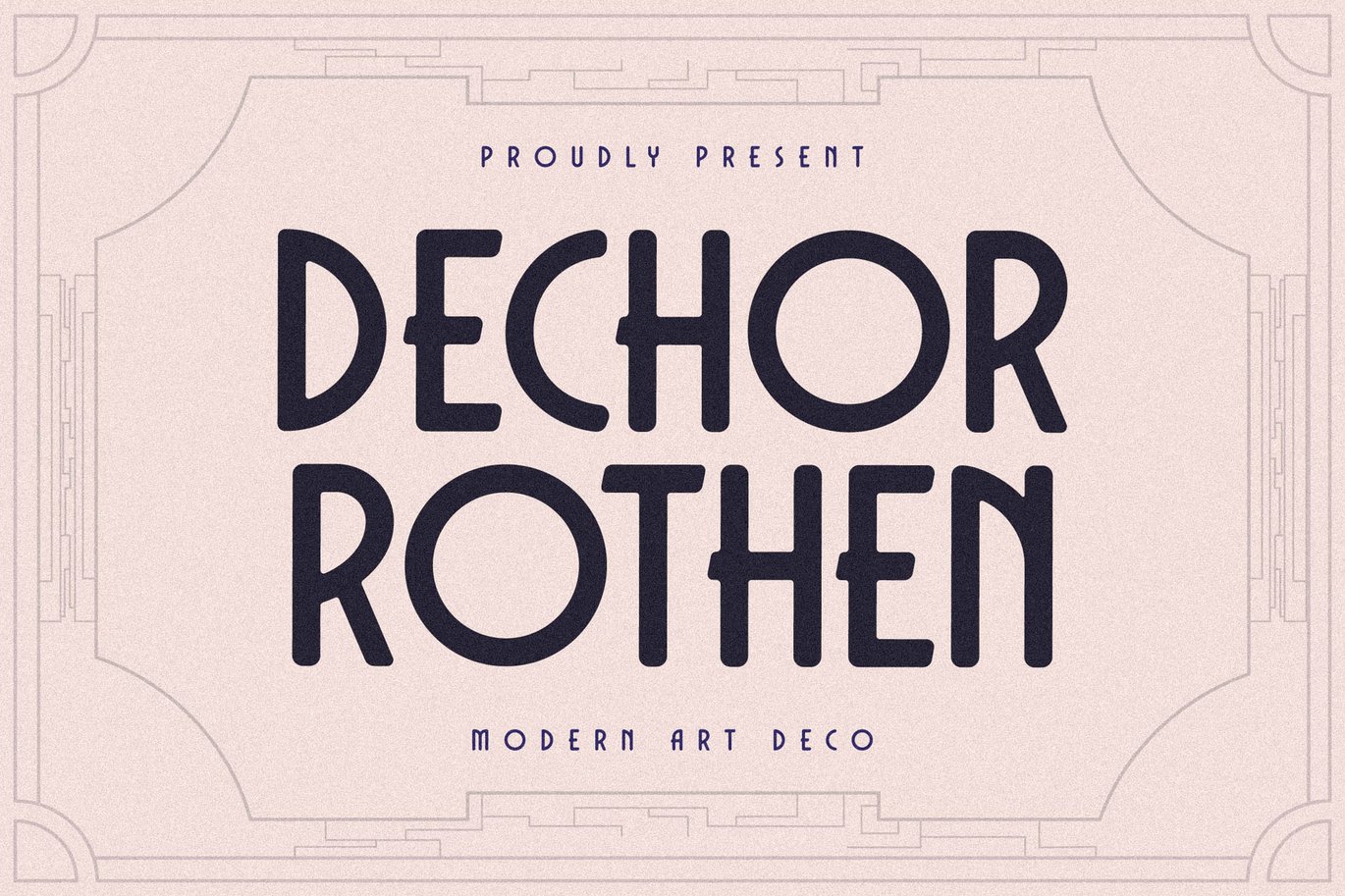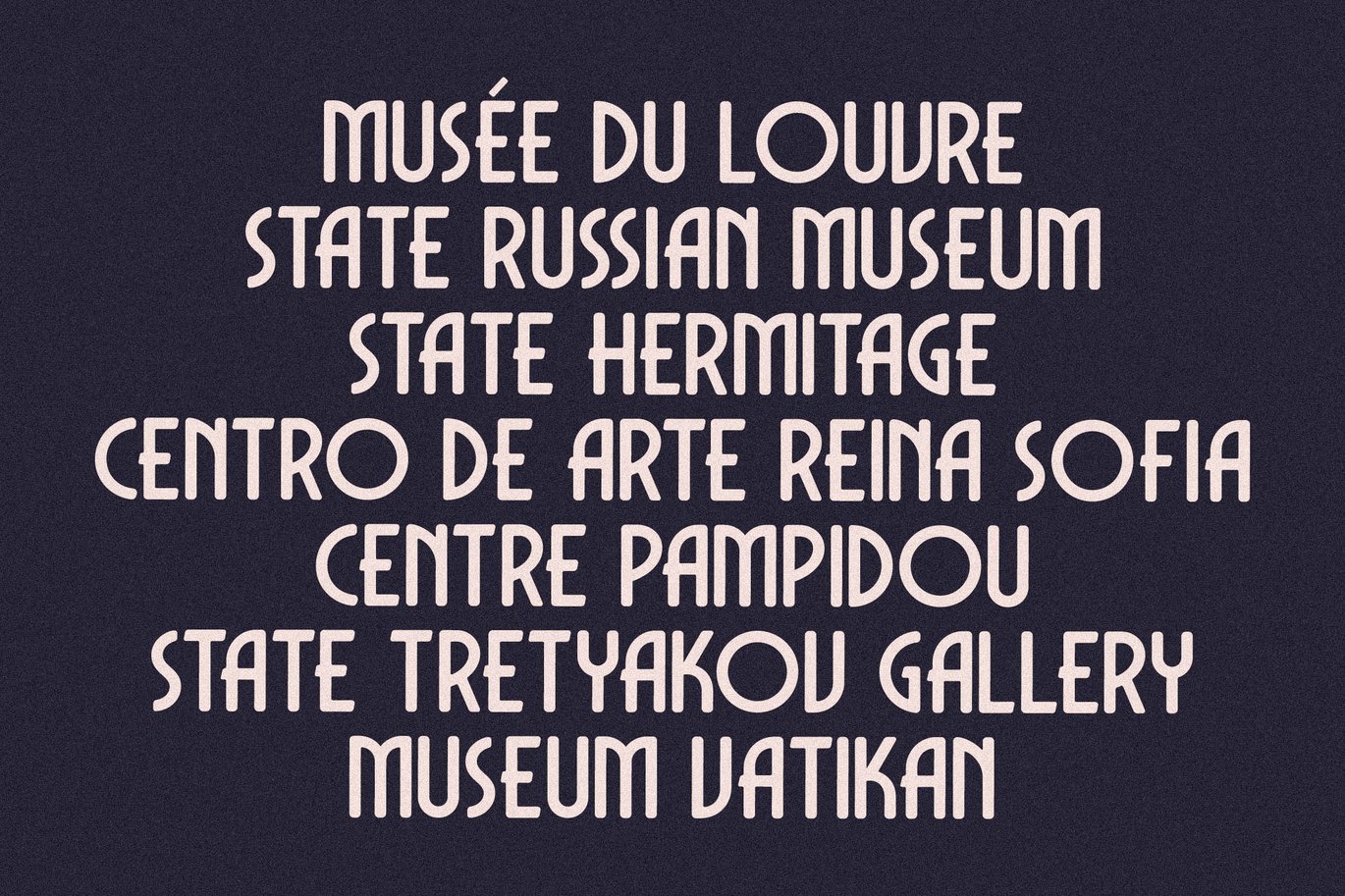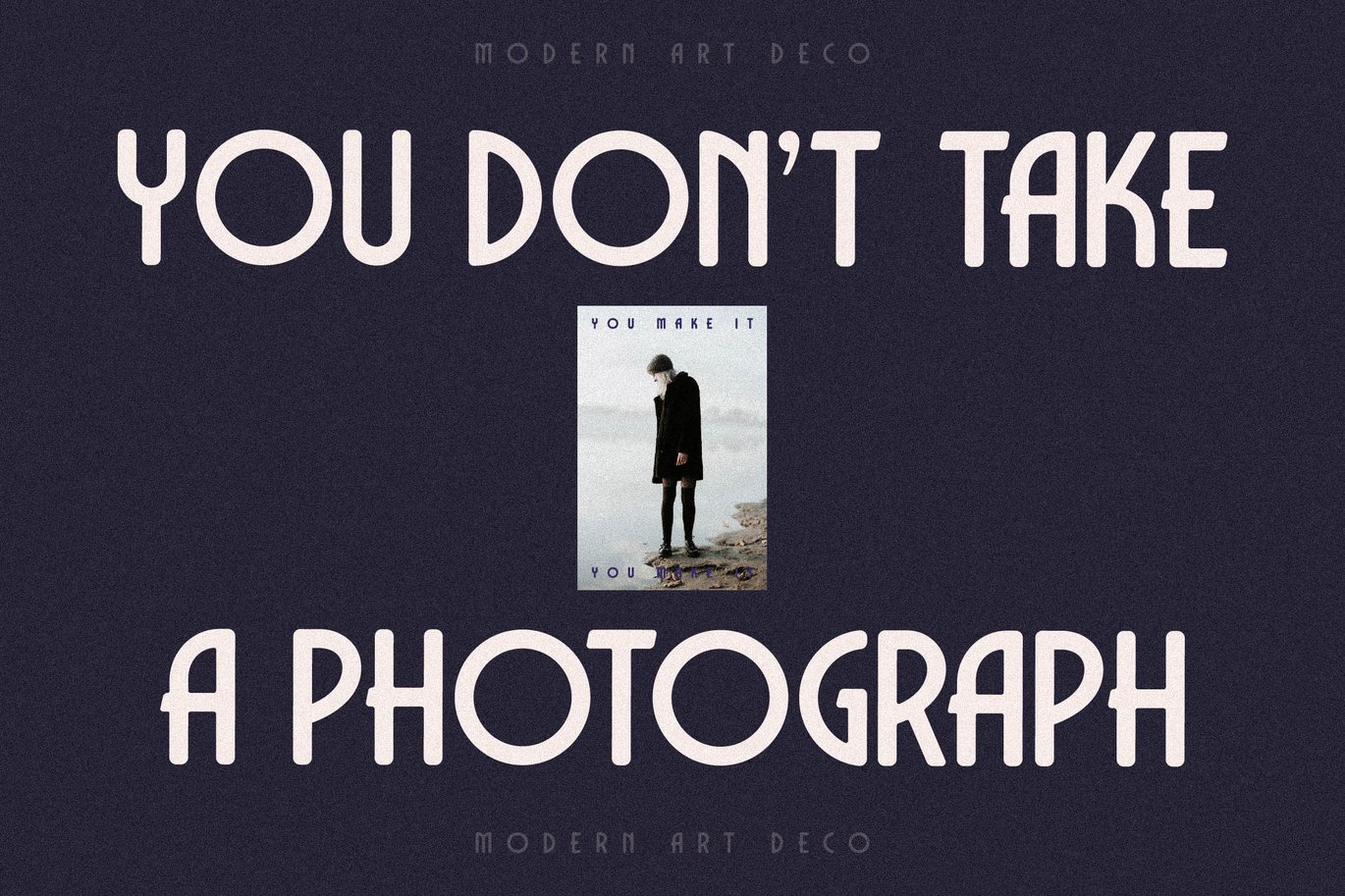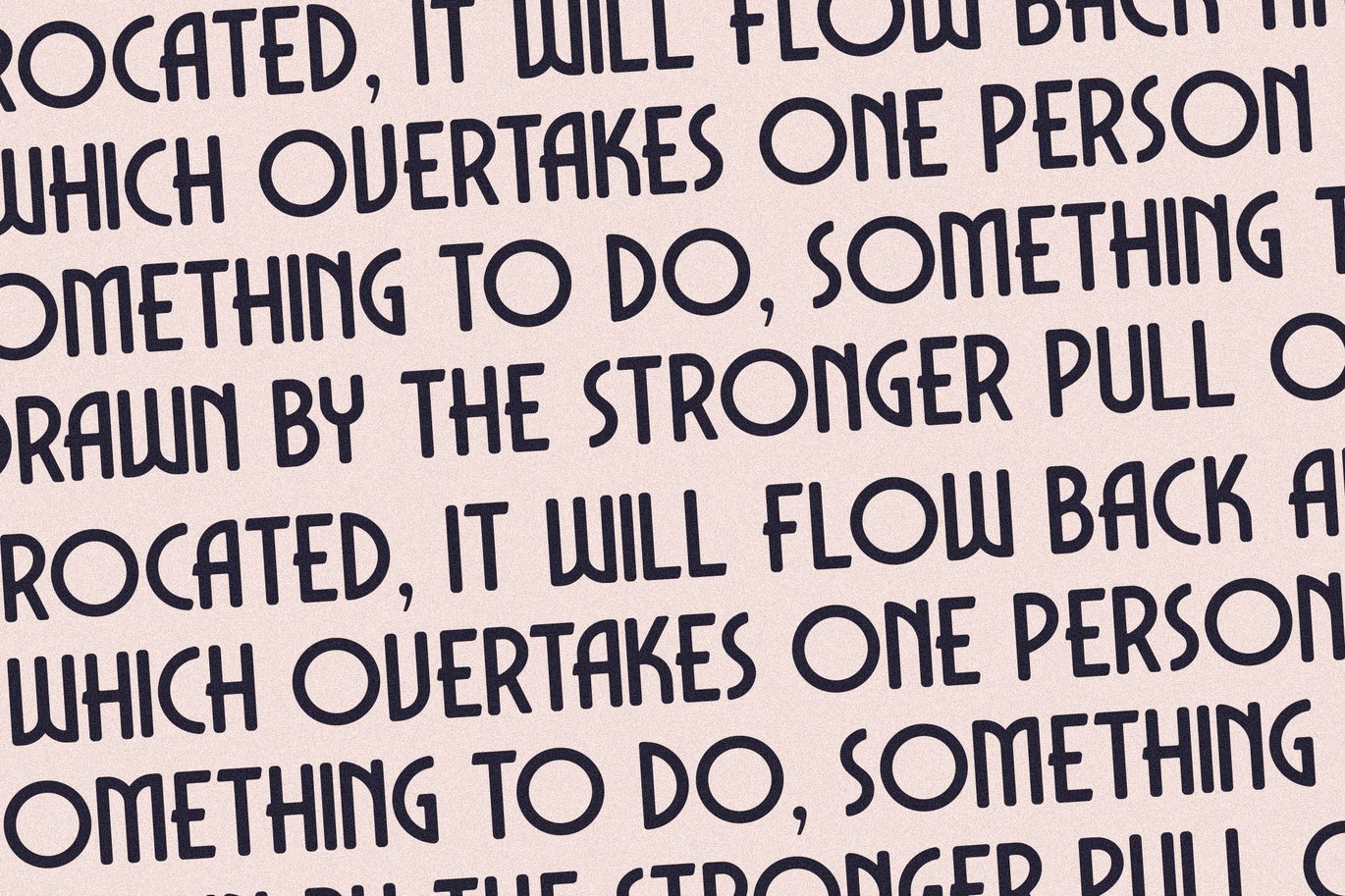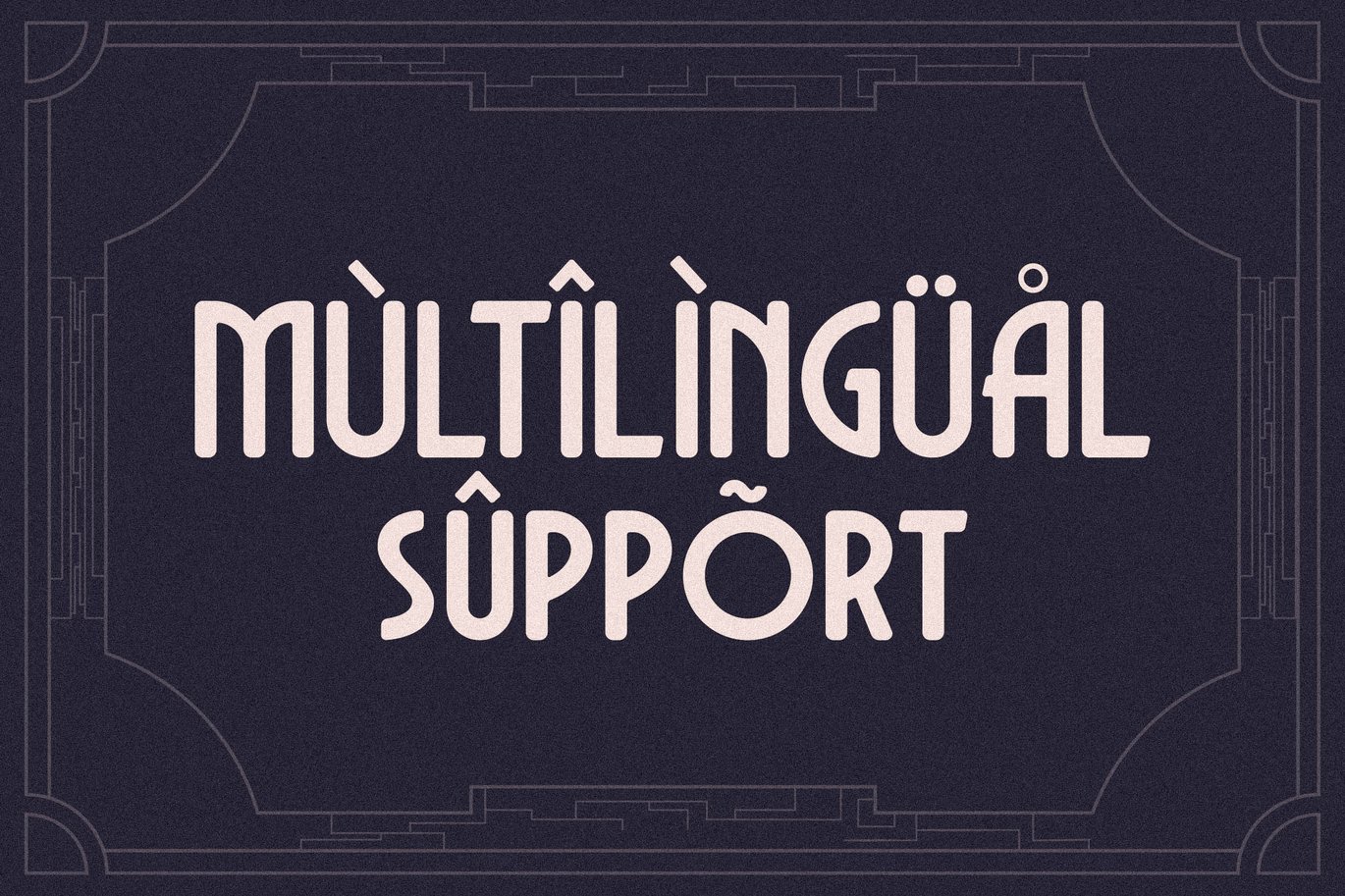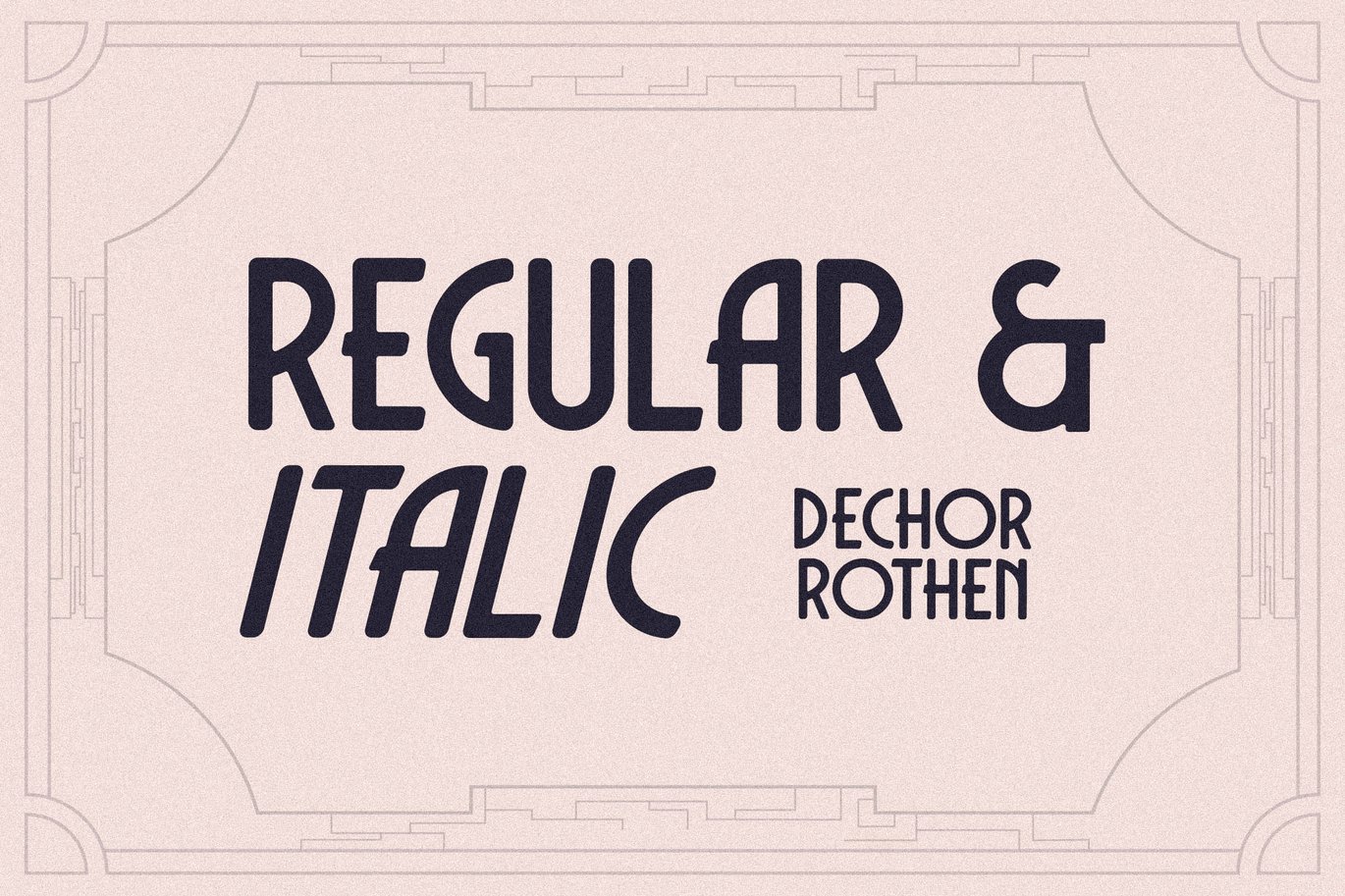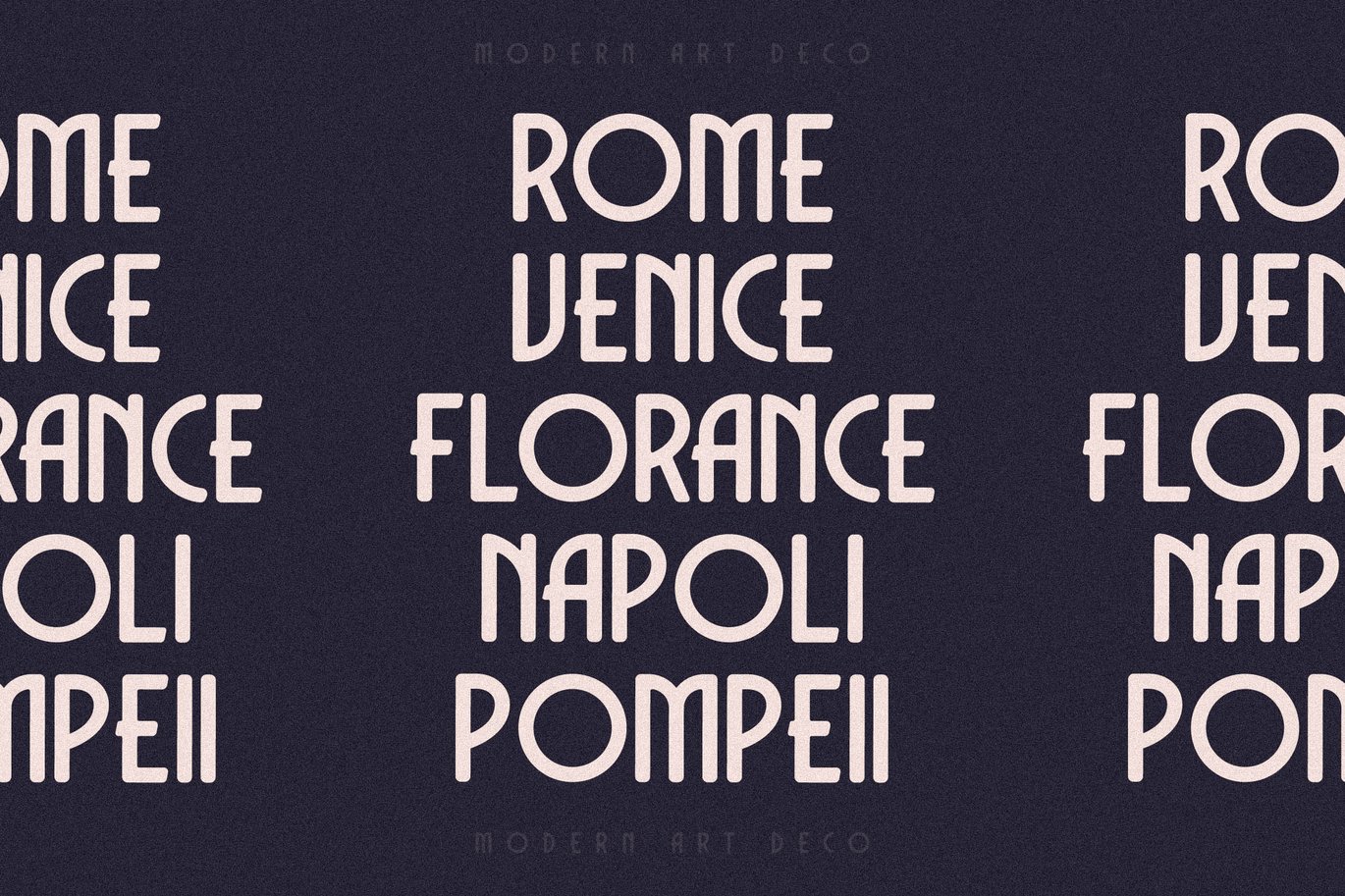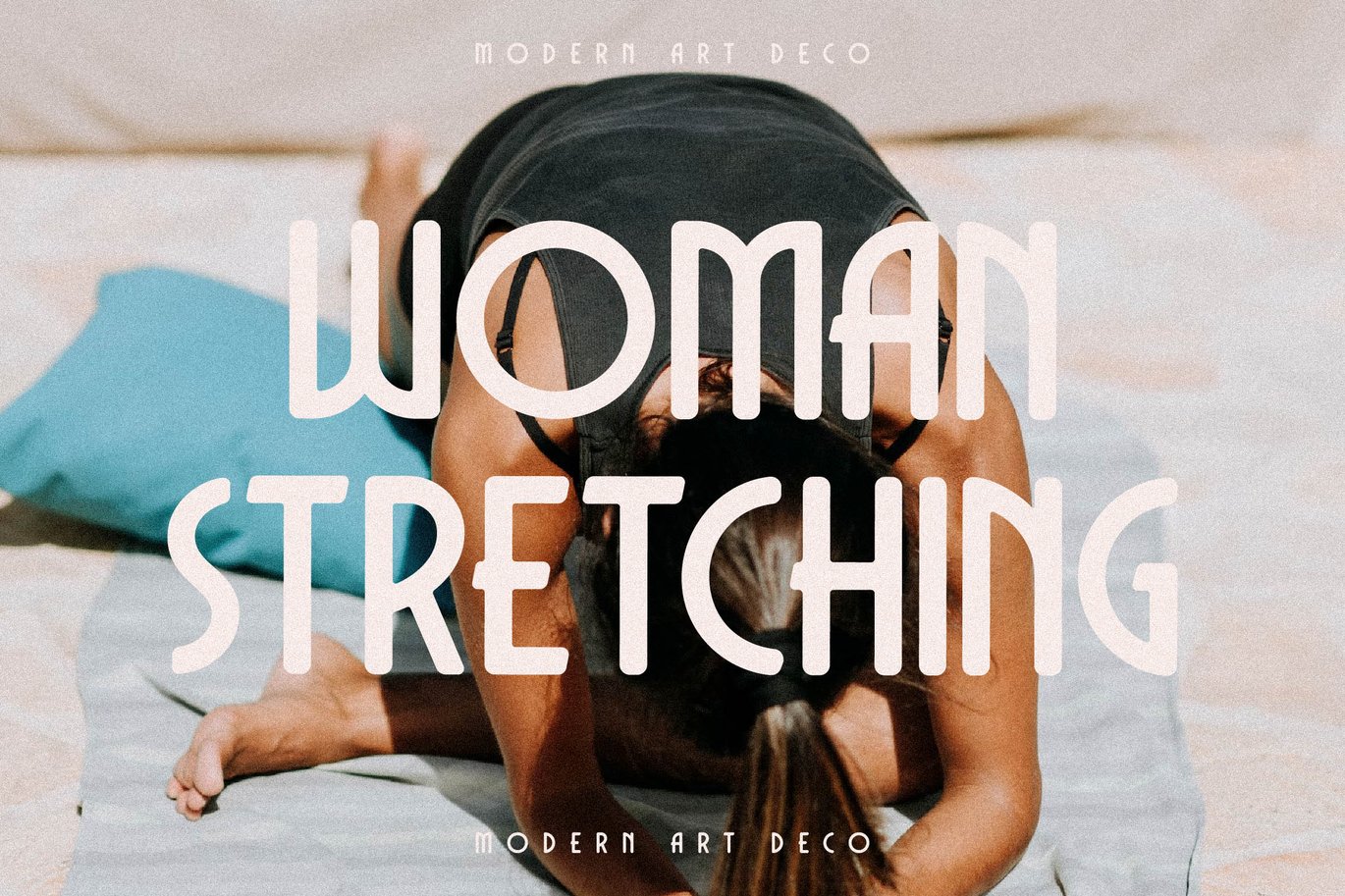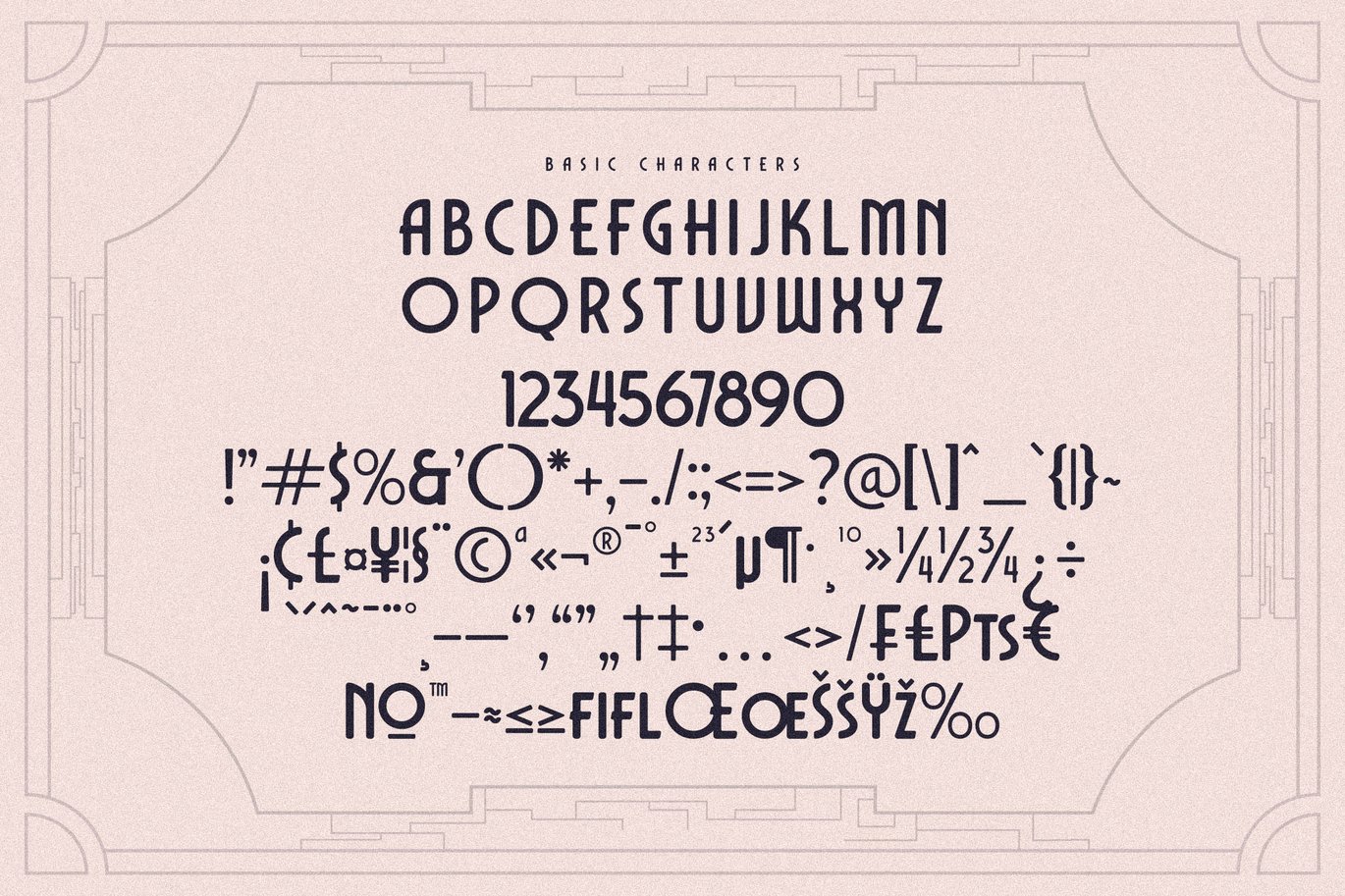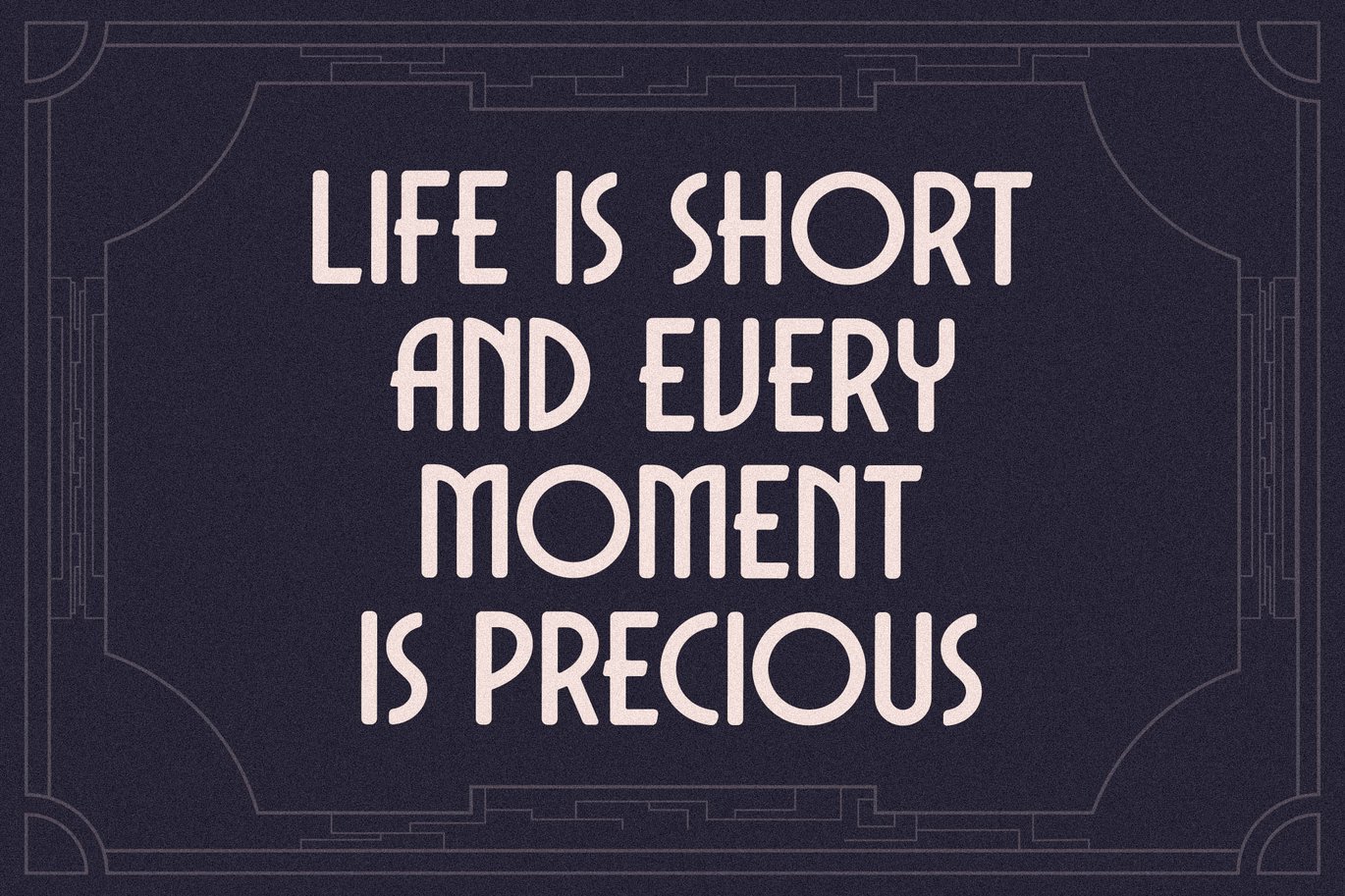
Dechor Rothen – Modern Art Deco Typeface
Dechor Rothen is a modern Art Deco typeface inspired by the elegance of the 1920s and 1930s. Its sleek and geometric letterforms make it an excellent choice for luxury branding, posters, headlines, and editorial design. With a blend of vintage aesthetics and modern touch, this font brings a sophisticated and timeless feel to any project.
- Authentic Art Deco Style – Inspired by the golden era of design
- Geometric & Stylish Letterforms – Perfect for vintage and modern compositions
- Versatile & Elegant – Ideal for branding, invitations, packaging, and advertising
- Multilingual Support – Supports multiple international languages
- Complete Character Set: Uppercase, numerals, punctuation